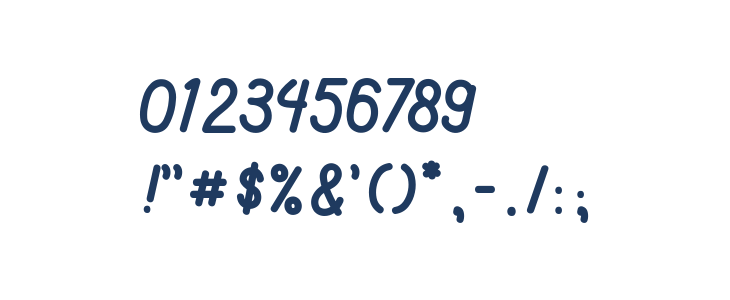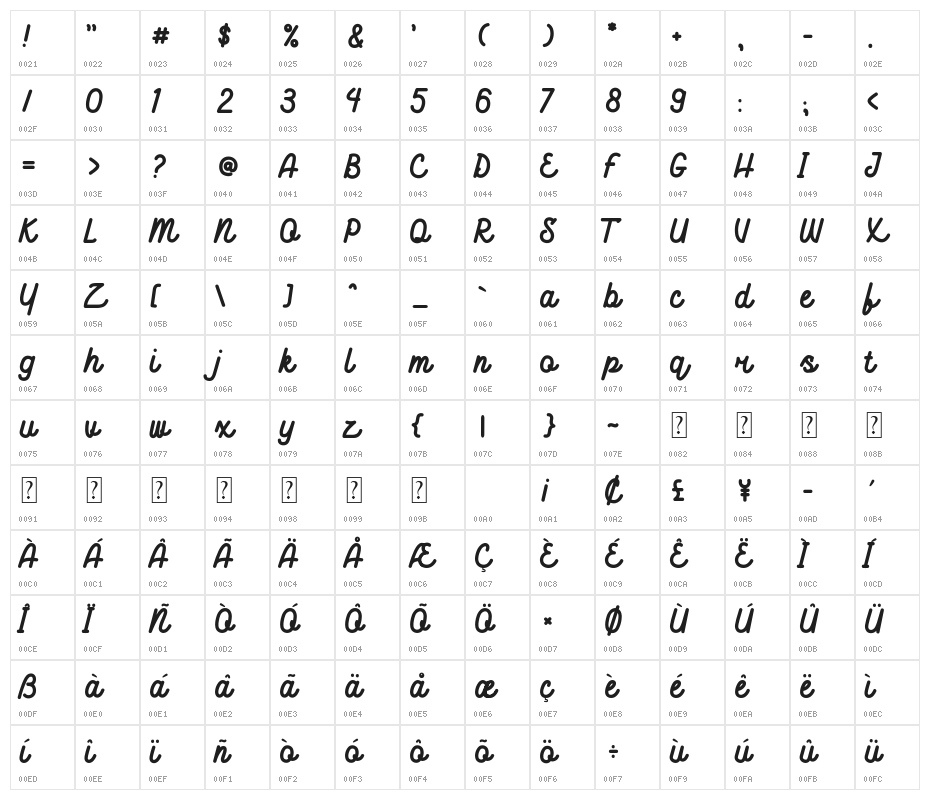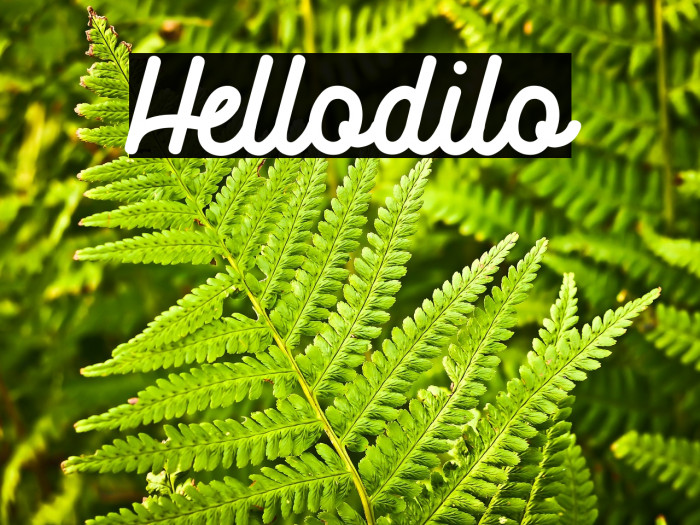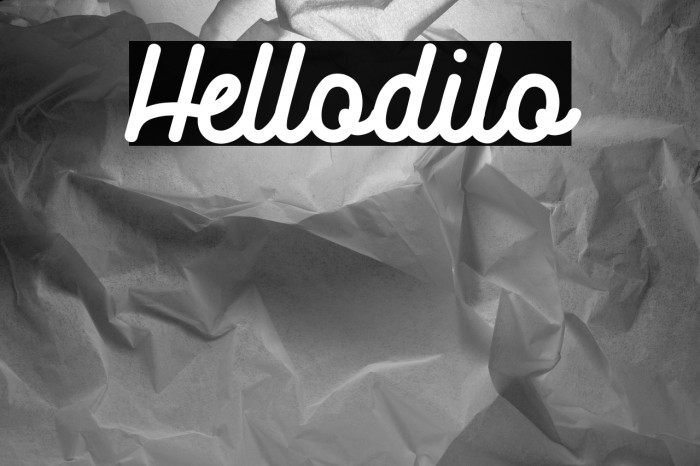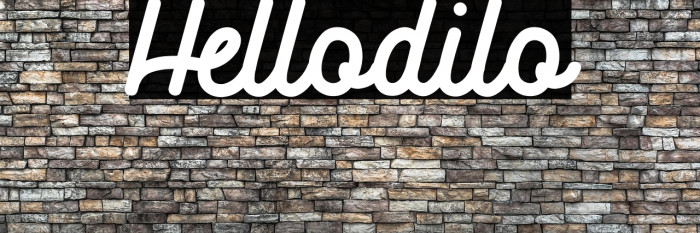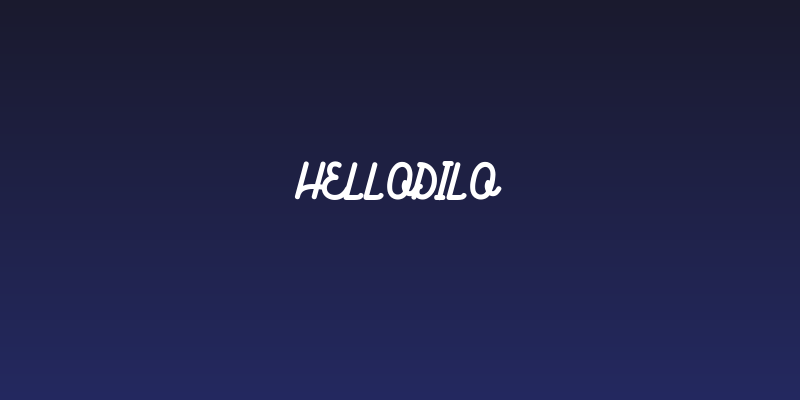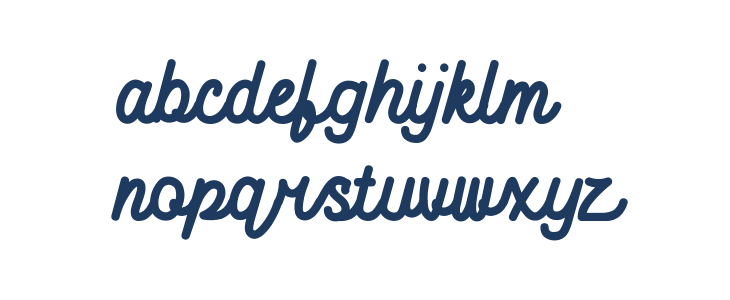
Hellodilo Font
Hellodilo Description
This font features a bold, cursive style with smooth, flowing lines that create a sense of movement and elegance. The letters are interconnected, giving it a handwritten appearance, while maintaining a consistent thickness throughout. The uppercase and lowercase letters are well-balanced, with rounded edges that add a friendly and approachable feel. The numerals and special characters are designed to match the overall cursive aesthetic, ensuring a cohesive look across all elements. This font is versatile, suitable for a variety of design projects that require a personal touch.
| Use Case | Logos, Headlines, Invitations |
| Proposed Projects | Ideal for greeting cards, invitations, personal branding, and creative projects that require a personal, elegant touch. |